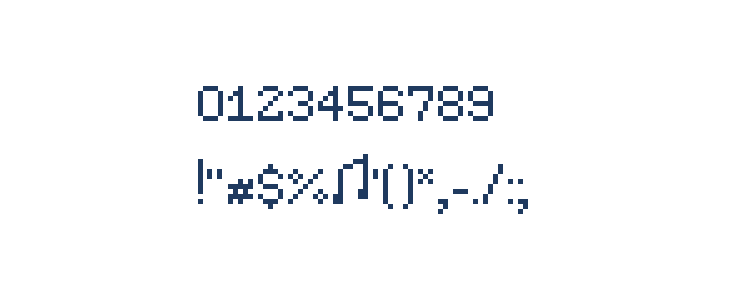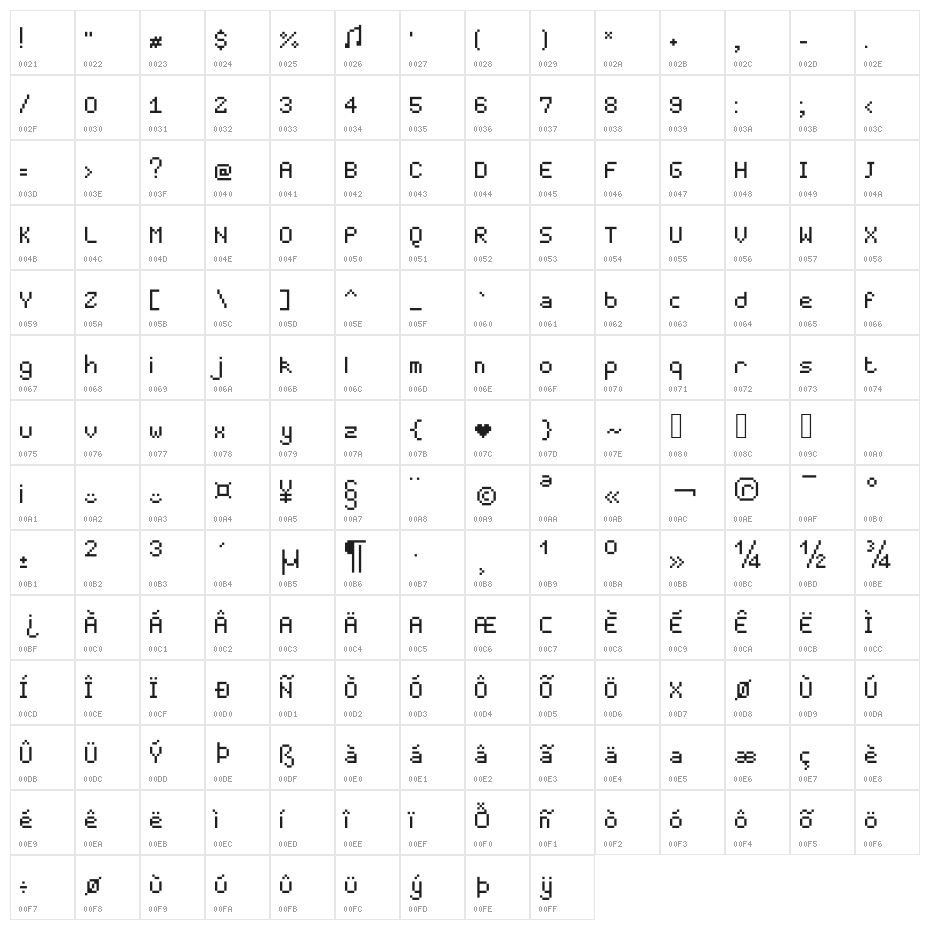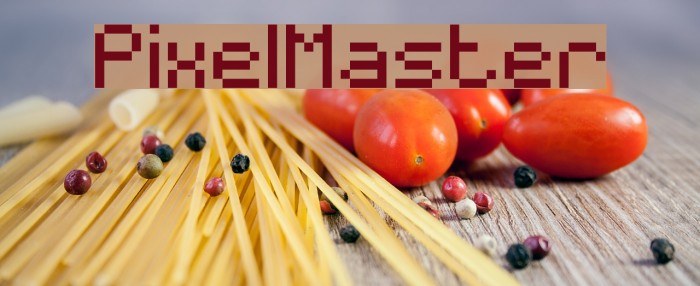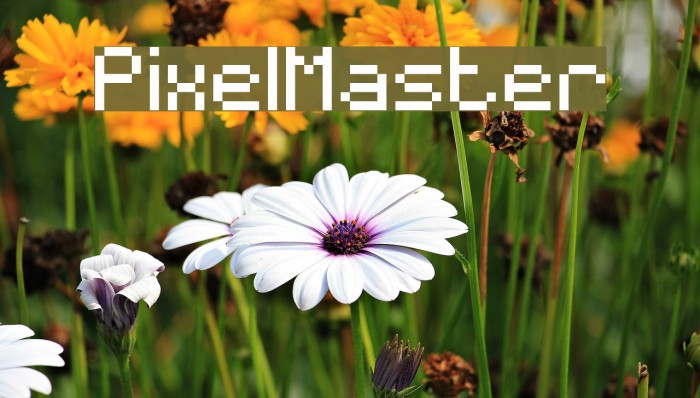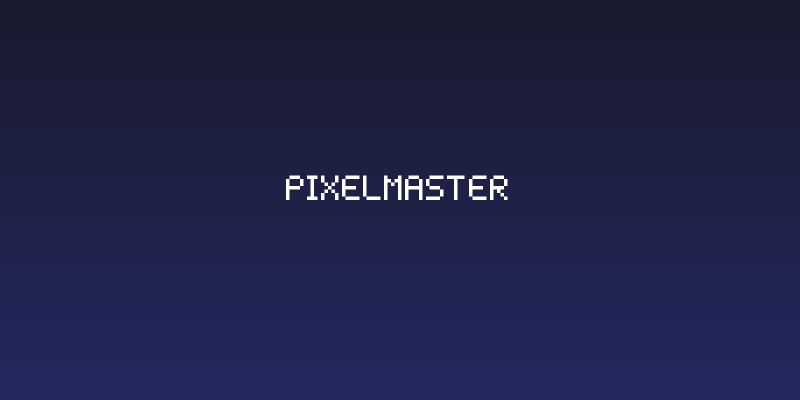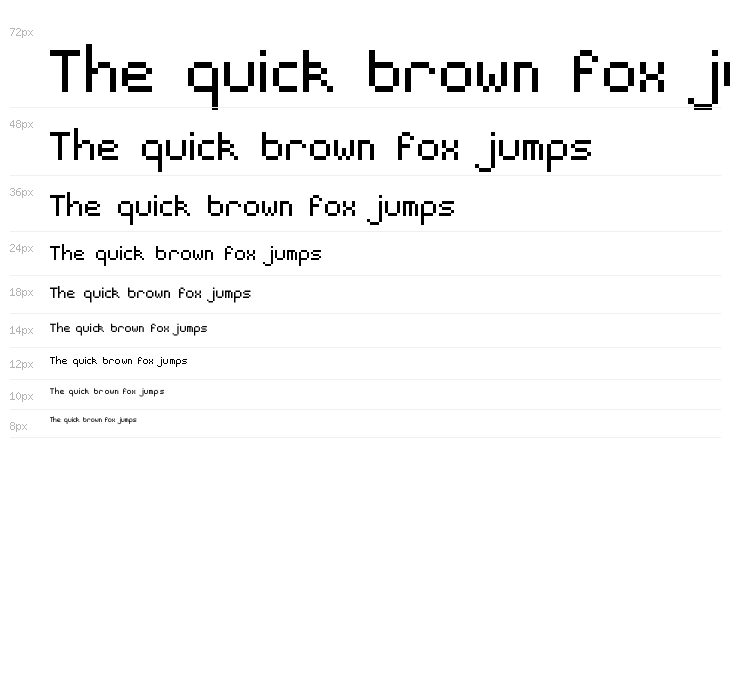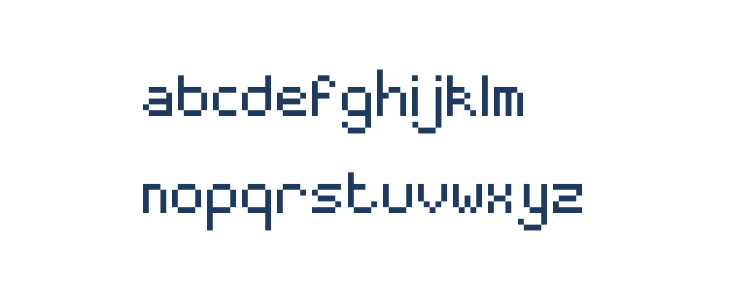
PixelMaster Font
This font features a distinct pixelated design, reminiscent of early digital displays and retro video games. Each character is constructed with a grid-like precision, giving it a blocky and geometric appearance. The uniformity in stroke width across all characters contributes to its cohesive look, while the angular edges and straight lines enhance its digital aesthetic. The font maintains a consistent height and width for both uppercase and lowercase letters, ensuring readability and balance. Numbers and special characters follow the same pixelated style, making it ideal for projects that require a nostalgic or tech-inspired feel.
| Overall Style | Retro, Digital |
| Use Case | Logos, Headlines, Digital Art |
| Proposed Projects | Ideal for video game design, digital art projects, retro-themed posters, and tech-related branding. |